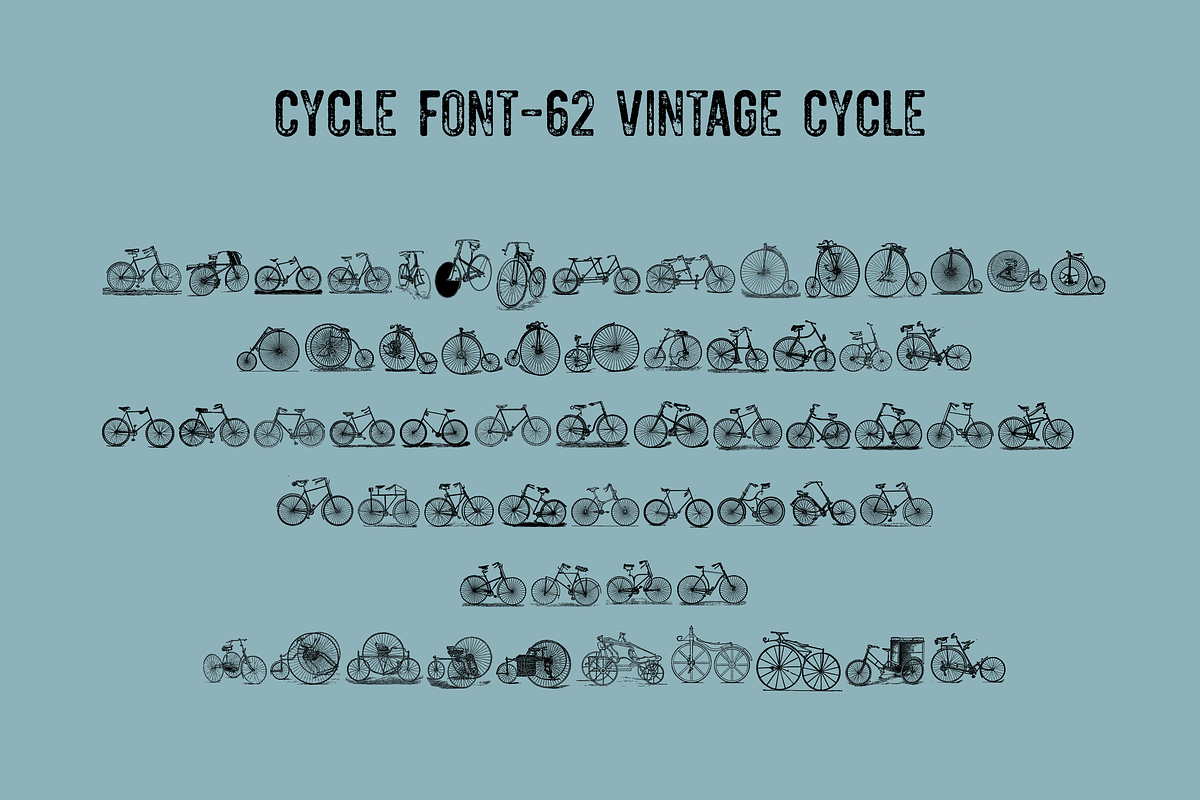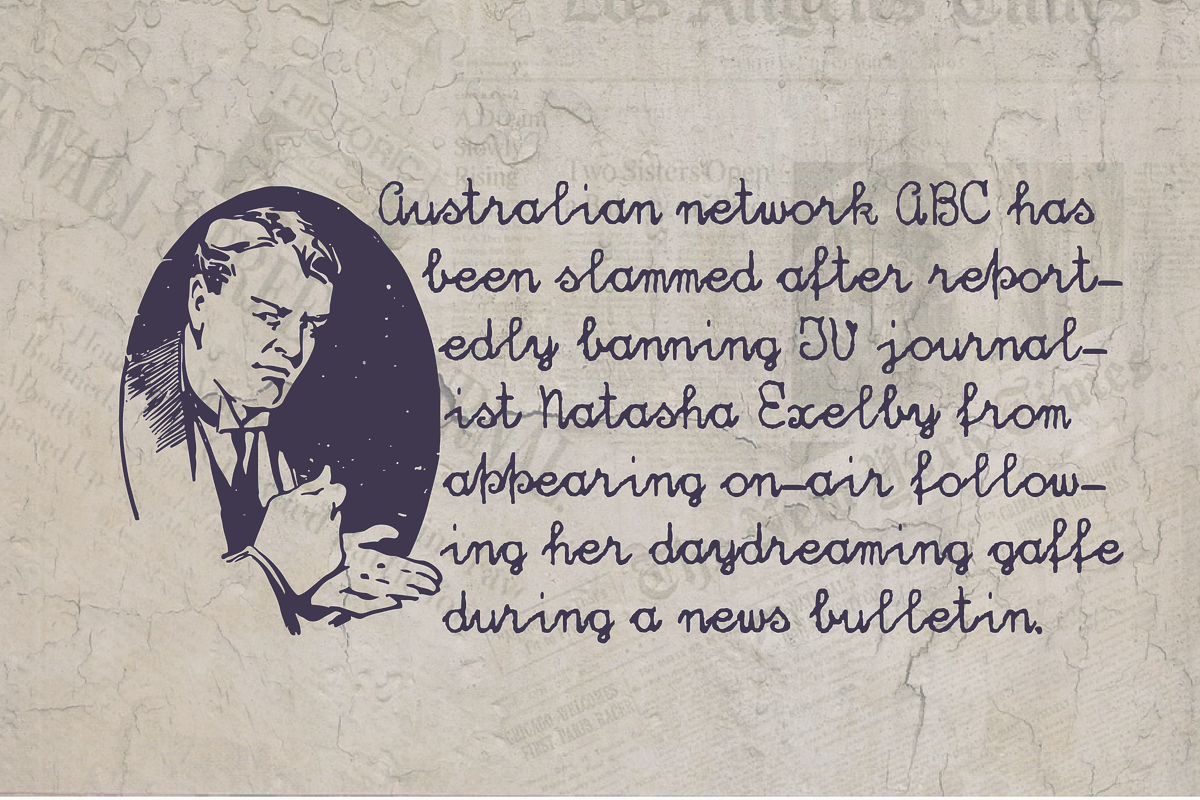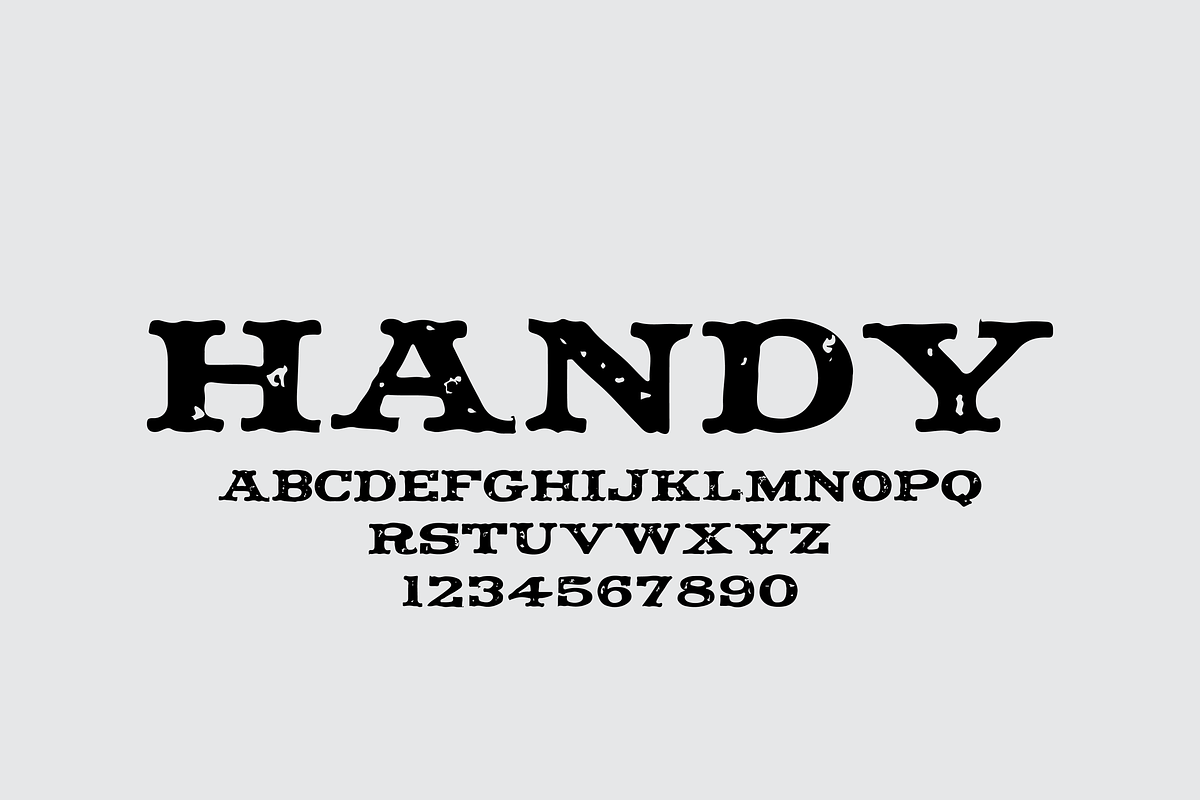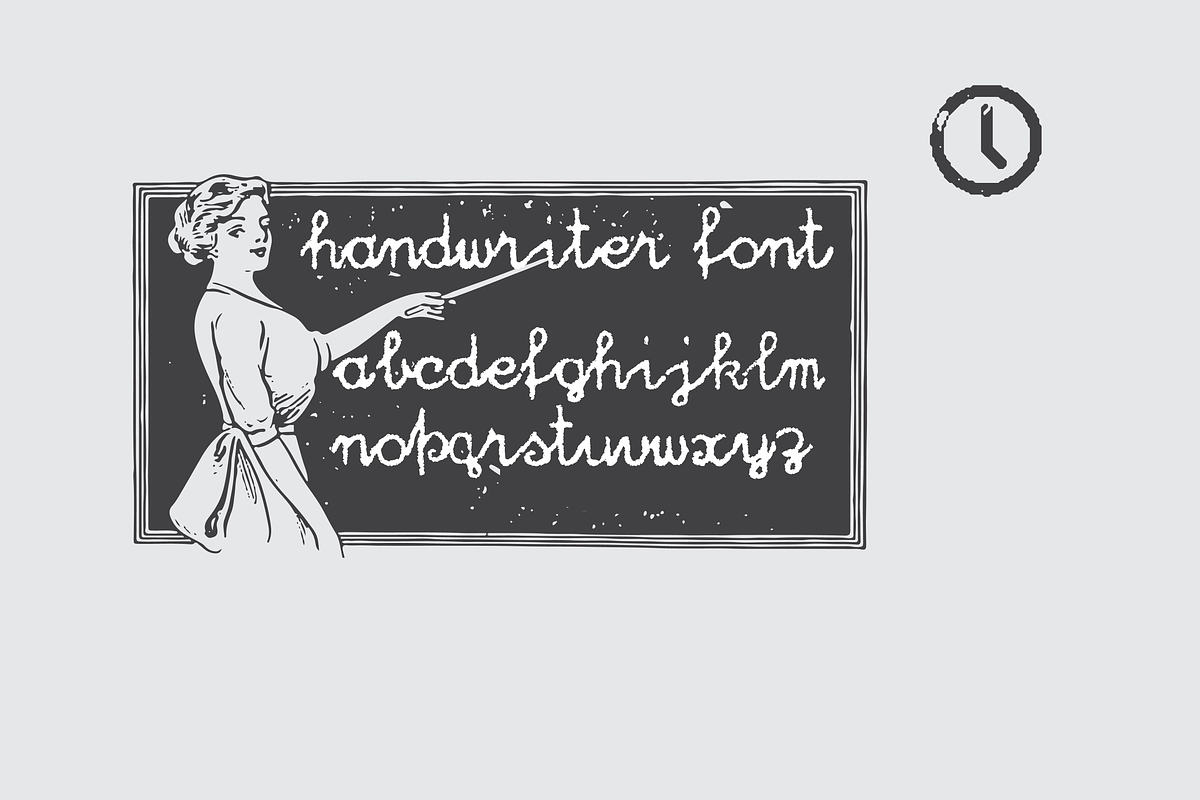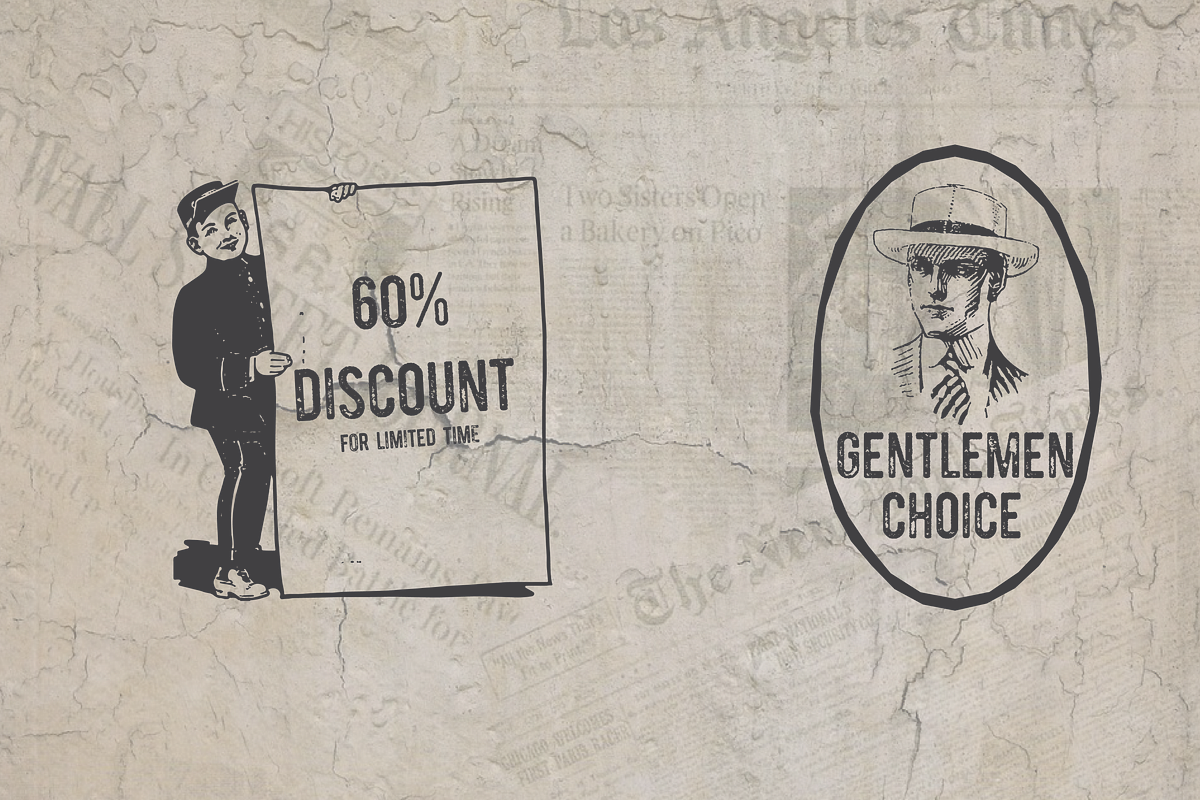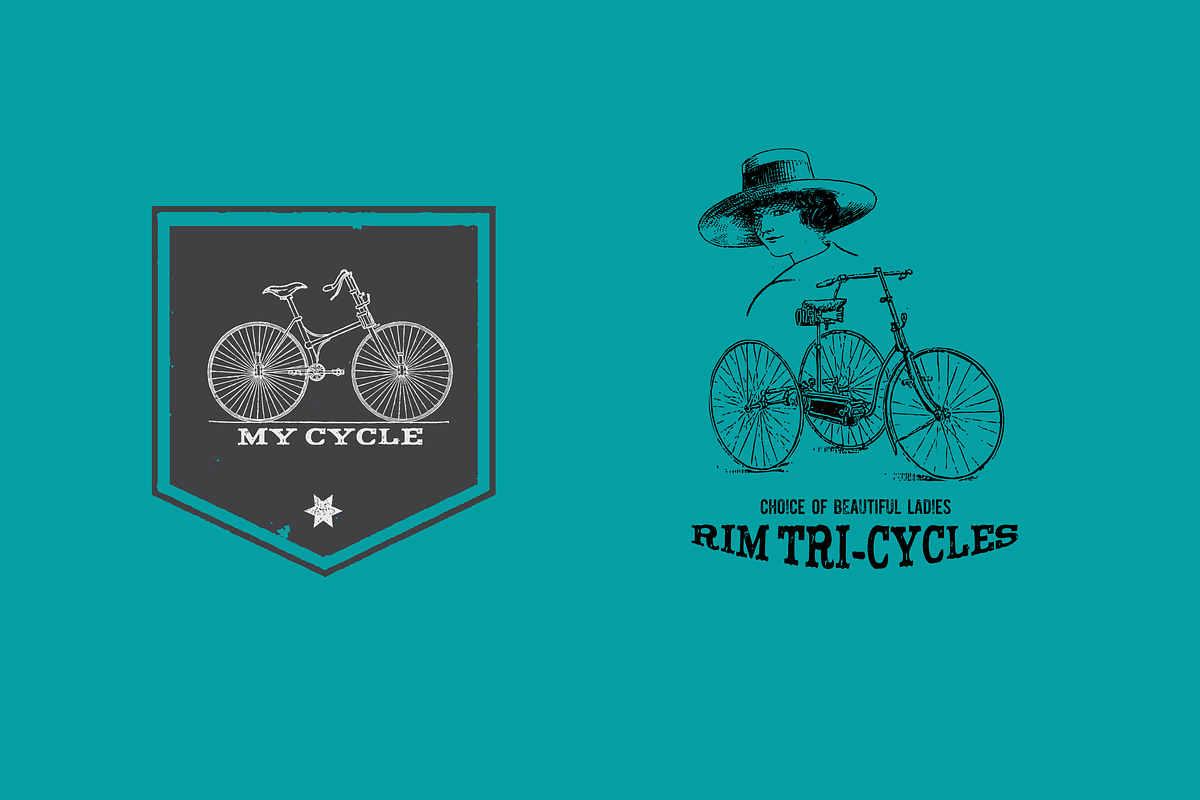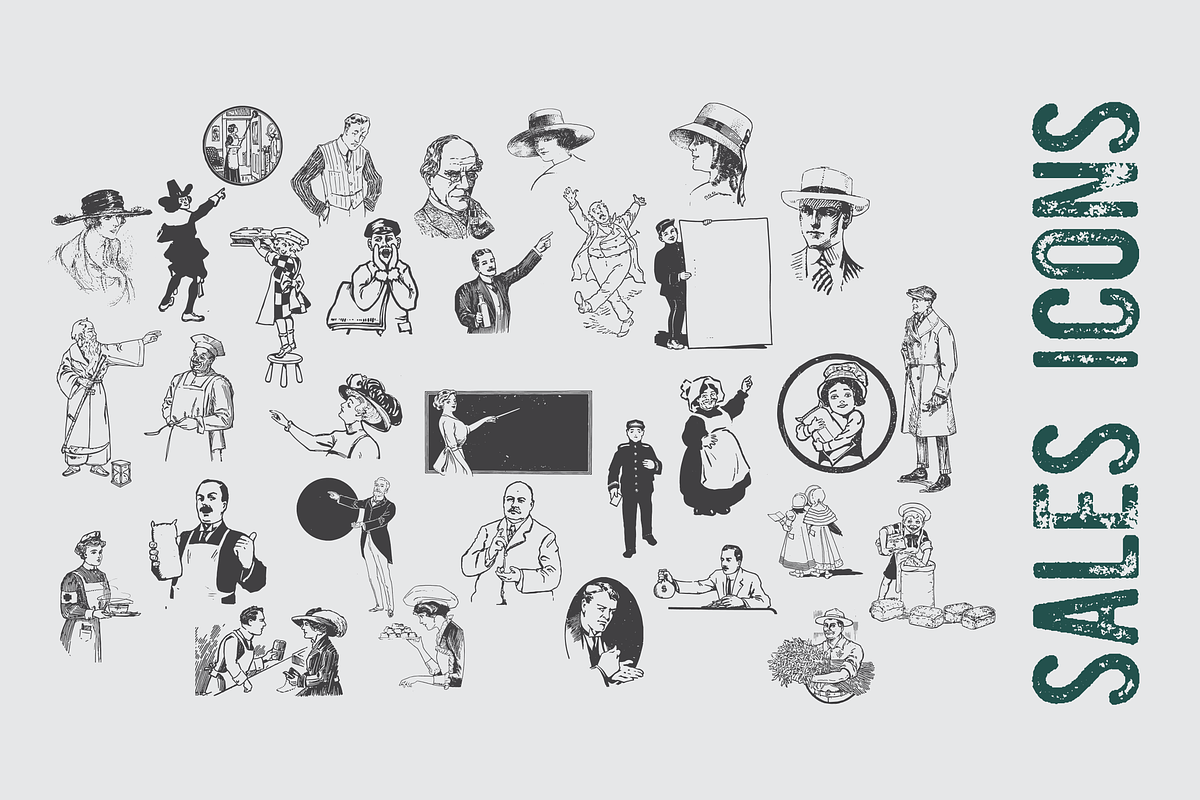
This pack contains 17 fonts, most famous one is Tamaki Pro,This font is crafted to give a real look of a letterpress font. We have Applied Contextual Substitutions feature in fontlab with 5 different alternative of each letter (standard English alphabets). No more repeating same contours of letters. Every letter replaces itself automatically to 5 variations to give you real look.
We are giving 7 variations in separate font of Tamaki as well.
Handwriter and Handy fonts also a big part of this bundle.
We made a cycle font which contains 62 different vectorised cycle. We taken our best pick from